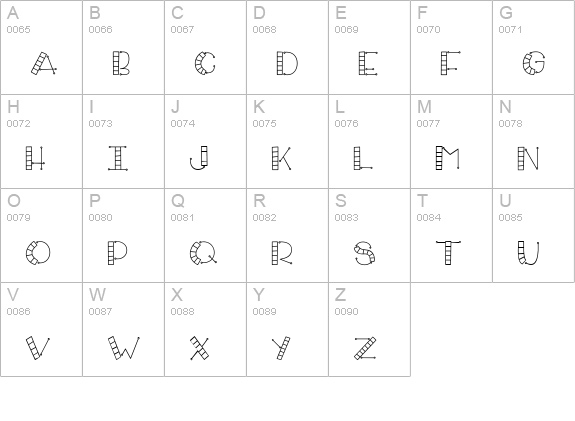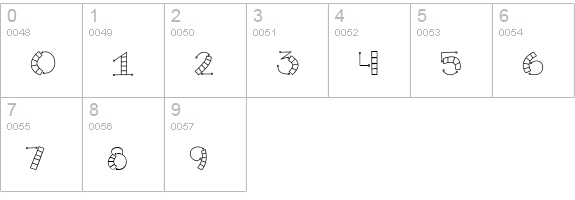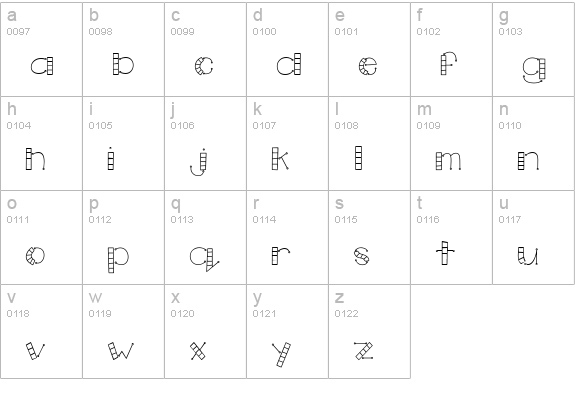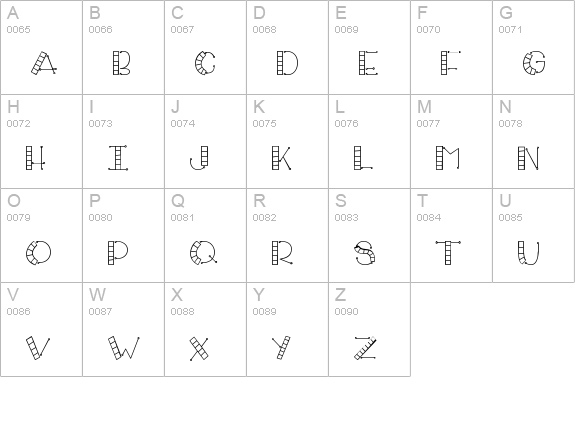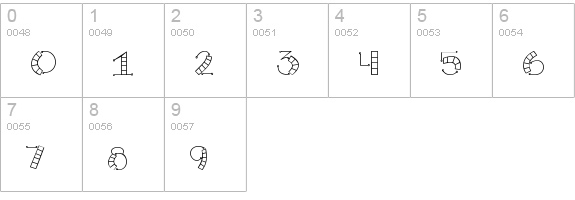
CK Checks Font Details
Introducing CK Checks font, a modern and stylish typeface designed to make a statement. This versatile font is perfect for a wide range of design projects, from branding to packaging to social media graphics. With its clean lines and contemporary feel, CK Checks font is sure to add a touch of sophistication to any project. The best part? CK Checks font is completely free to download at FontsMarket.com. Whether you're a seasoned designer looking to refresh your font collection or a newbie searching for the perfect typeface, CK Checks font is a fantastic choice. Don't miss out on this opportunity to elevate your designs with this sleek and eye-catching font. Download CK Checks font today and take your projects to the next level!